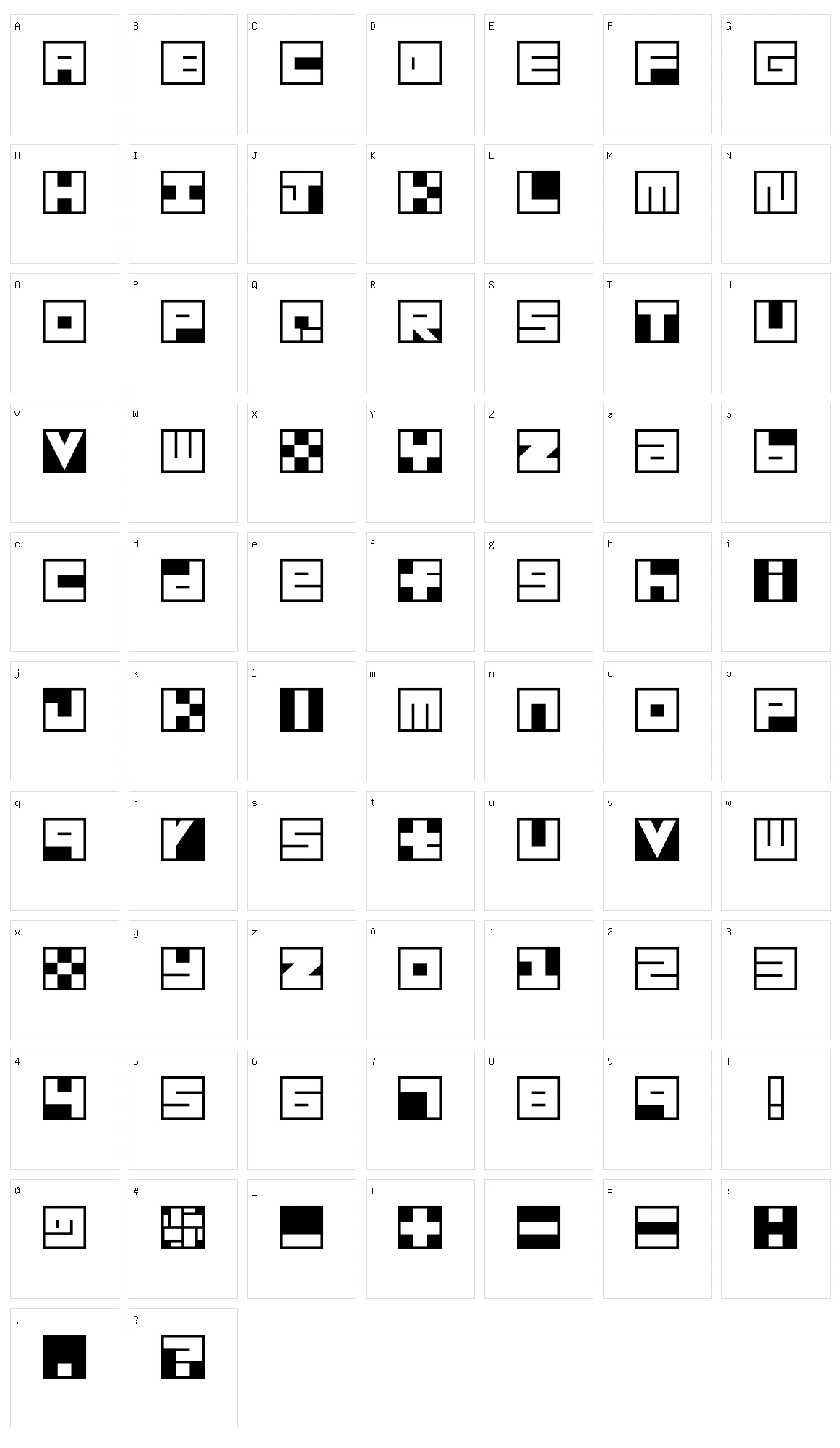
This Font family is made to make stuff look FUN- FOR FREE !(for personal purposes obviously)
Fun fact: This font is based on a cartoon competetion I took part in,Then I developed it into a full fledged font.